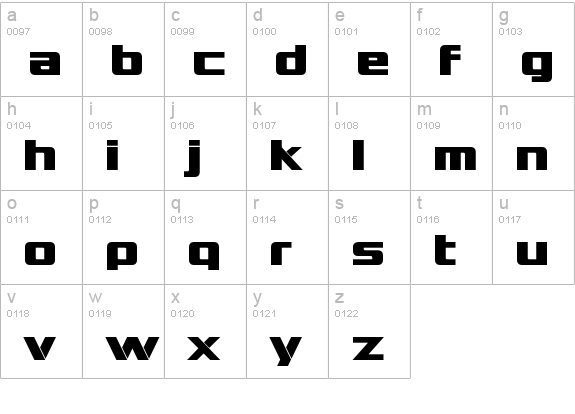
Interceptor Bold Font Details
Interceptor Bold is a strong, high-contrast variant in the Interceptor typeface family \xE2\x80\x94 well suited to headlines, attention-grabbing titles, and strong calls-to-action.
Interceptor Bold is a striking and commanding font that exudes confidence and power. With its bold and assertive letterforms, this typeface demands attention and makes a strong visual impact. Each character is meticulously crafted to convey a sense of strength and determination, making it perfect for headings, titles, and logos that need to make a bold statement. The Interceptor Bold font is not only visually captivating, but it also offers a seamless reading experience. The generous spacing between letters ensures legibility, even at smaller sizes, while maintaining its distinct personality. Whether used in print or digital media, this font effortlessly captures the essence of boldness and adds a touch of sophistication to any design. One of the most remarkable aspects of Interceptor Bold is that it is freely available to download at FontsMarket.com. This means that you can easily access and utilize this impressive typeface for both personal and commercial projects without any restrictions. Its availability at FontsMarket.com allows designers, creators, and enthusiasts to explore the depths of its versatility and unleash their creativity without any limitations. So, if you're seeking a font that embodies strength, power, and free availability, Interceptor Bold is the perfect choice. Download it now at FontsMarket.com and experience the seamless blend of boldness and elegance in your designs. Let your creativity soar with Interceptor Bold and make a lasting impression that leaves a bold mark on your audience.